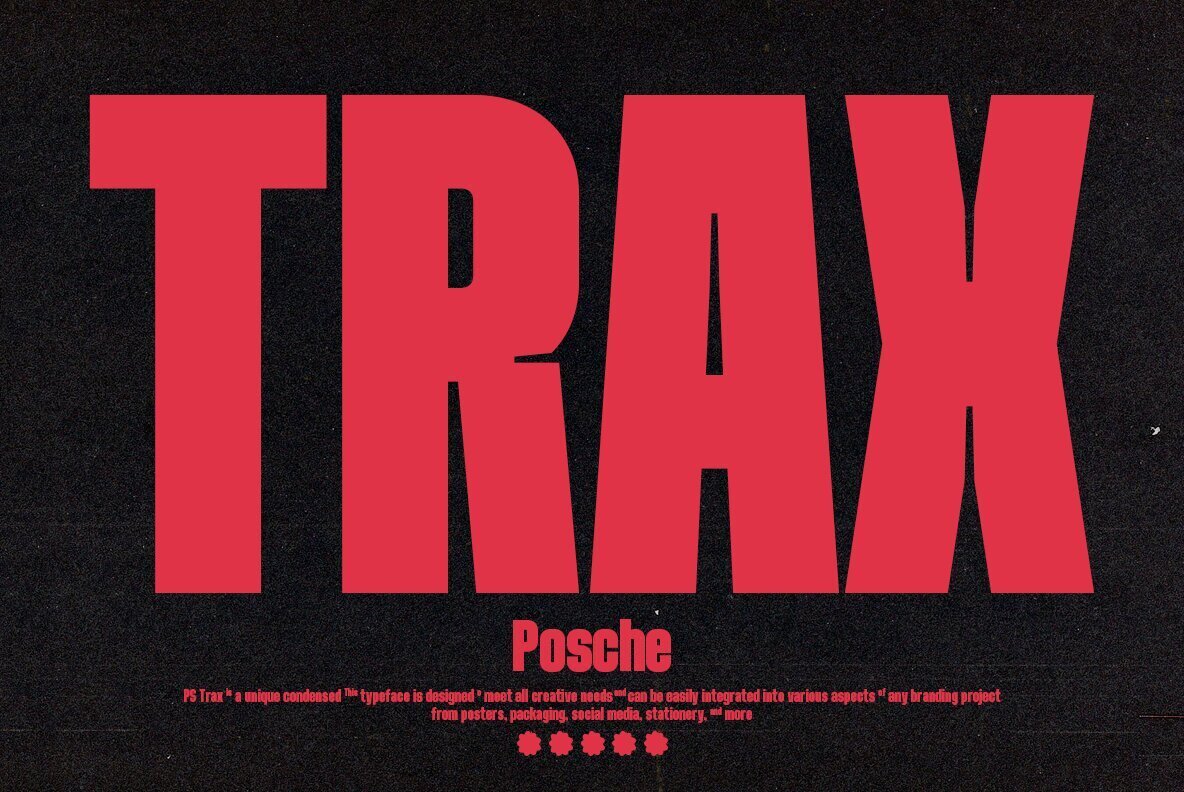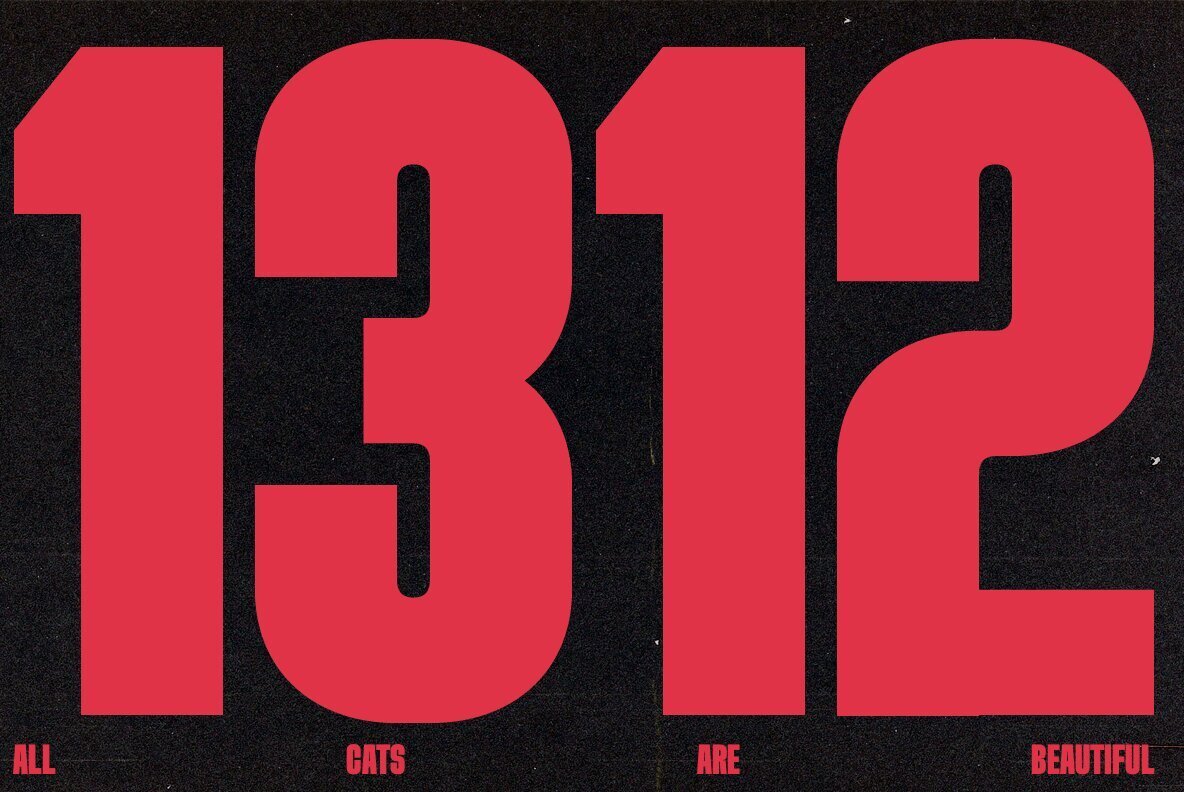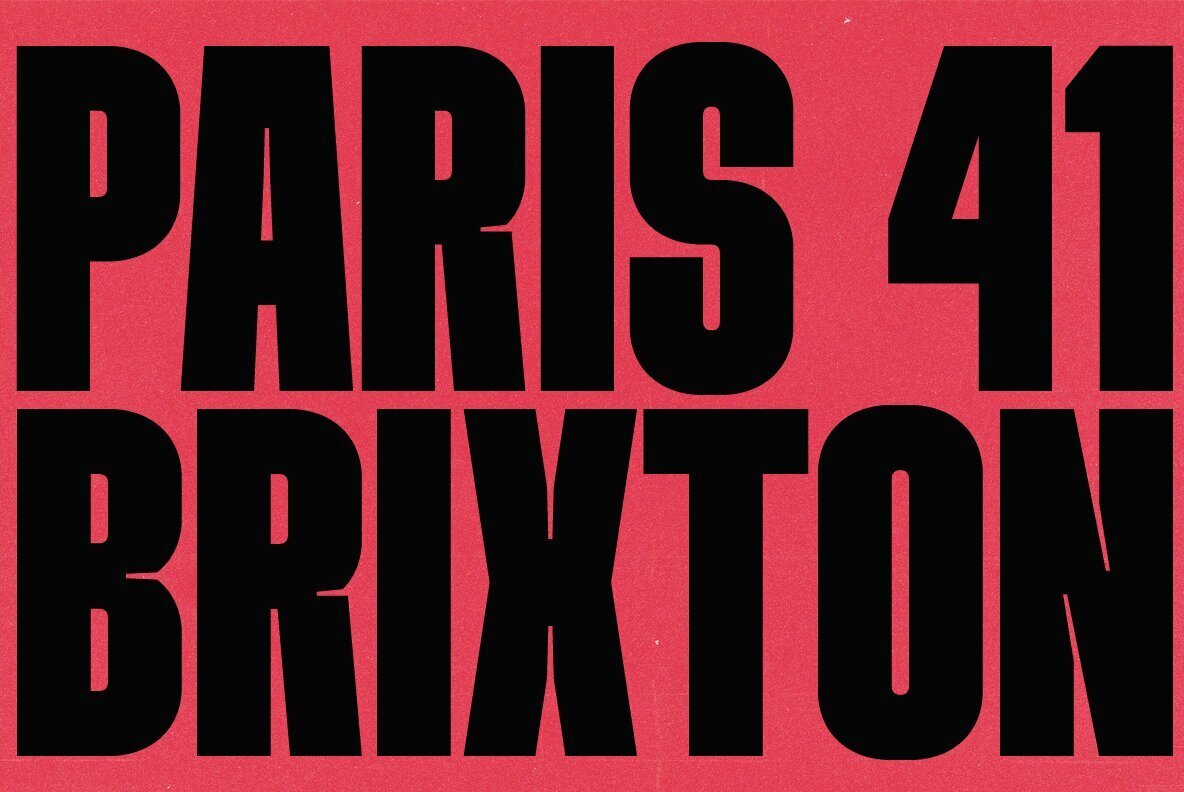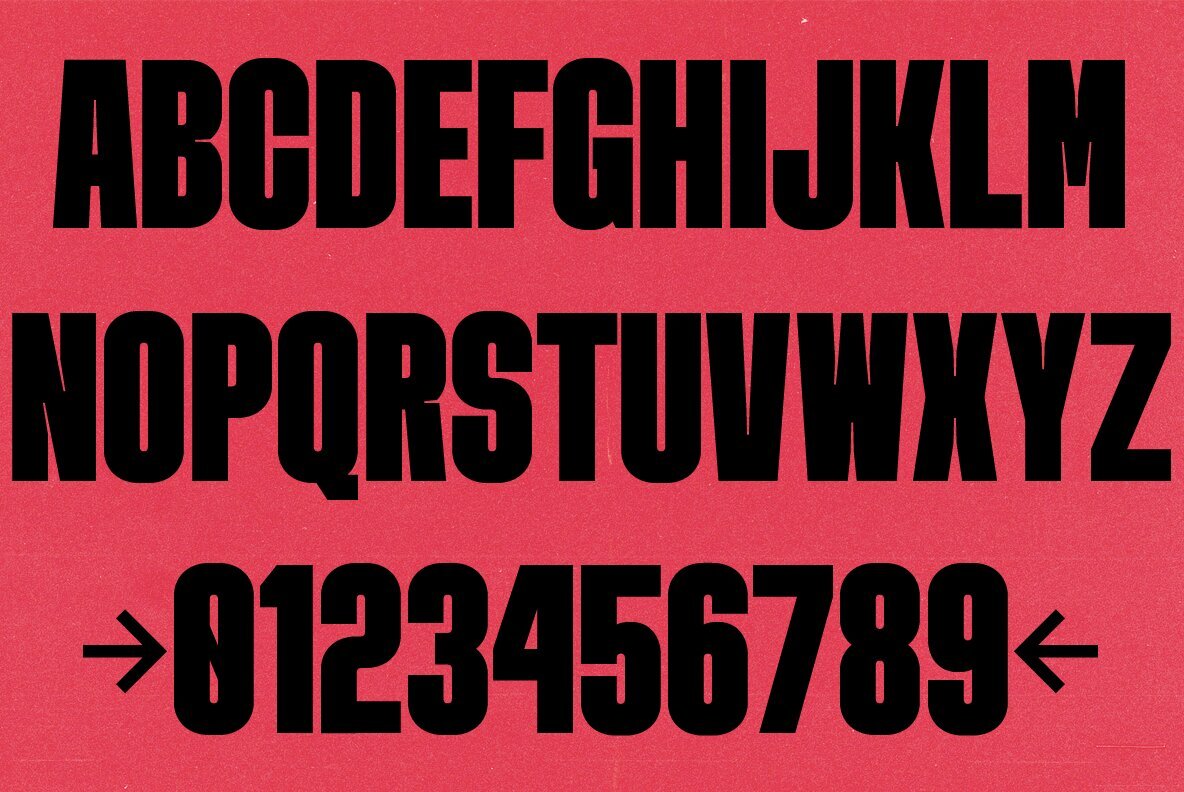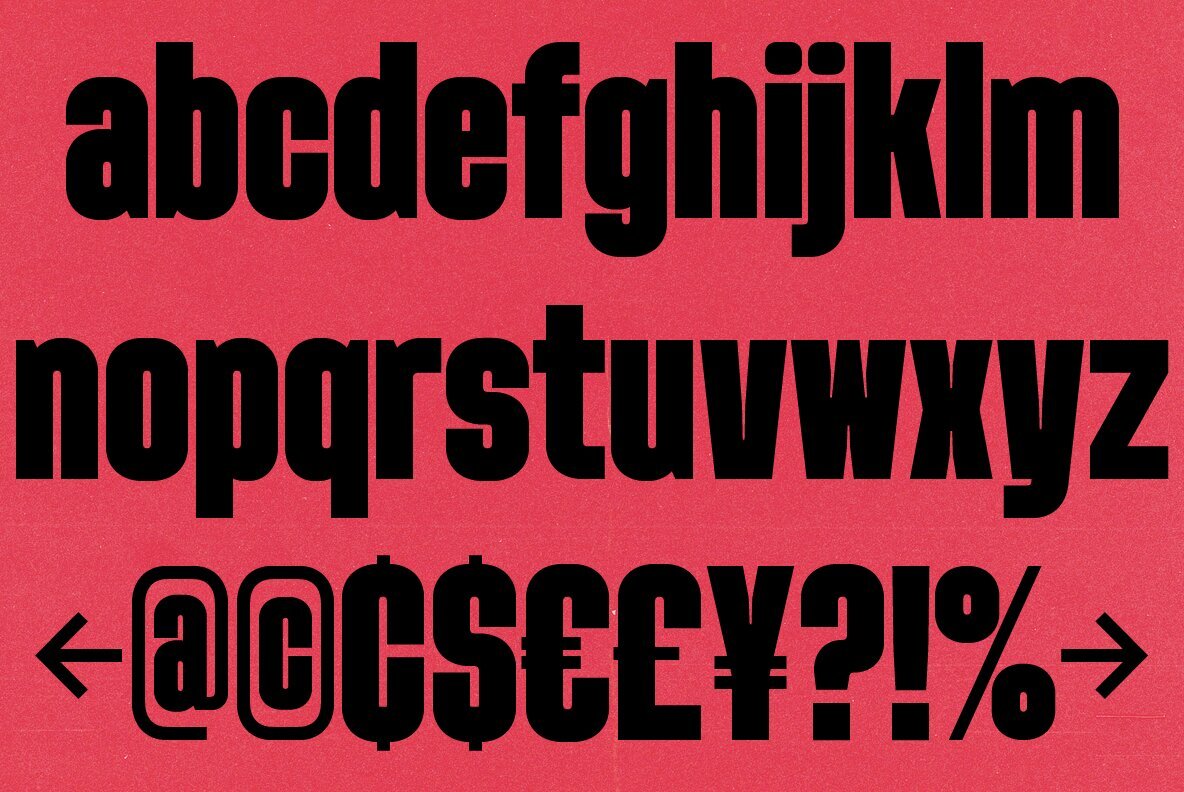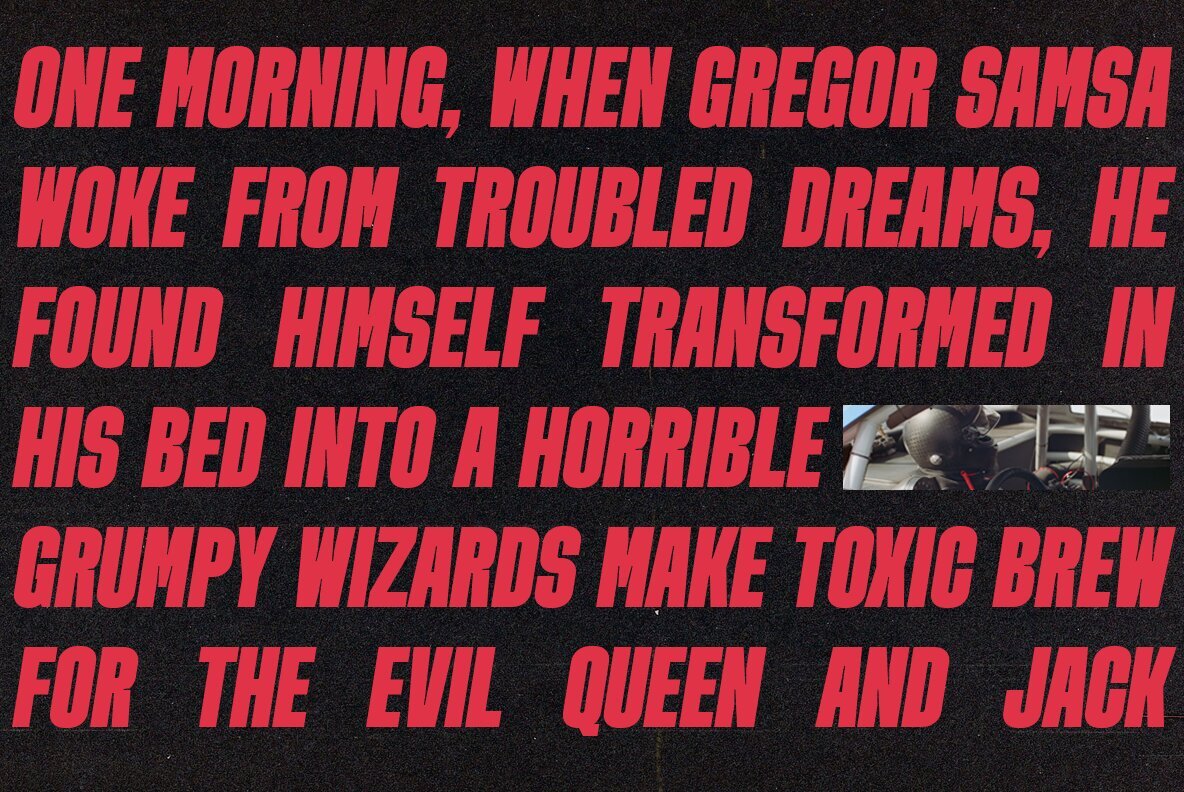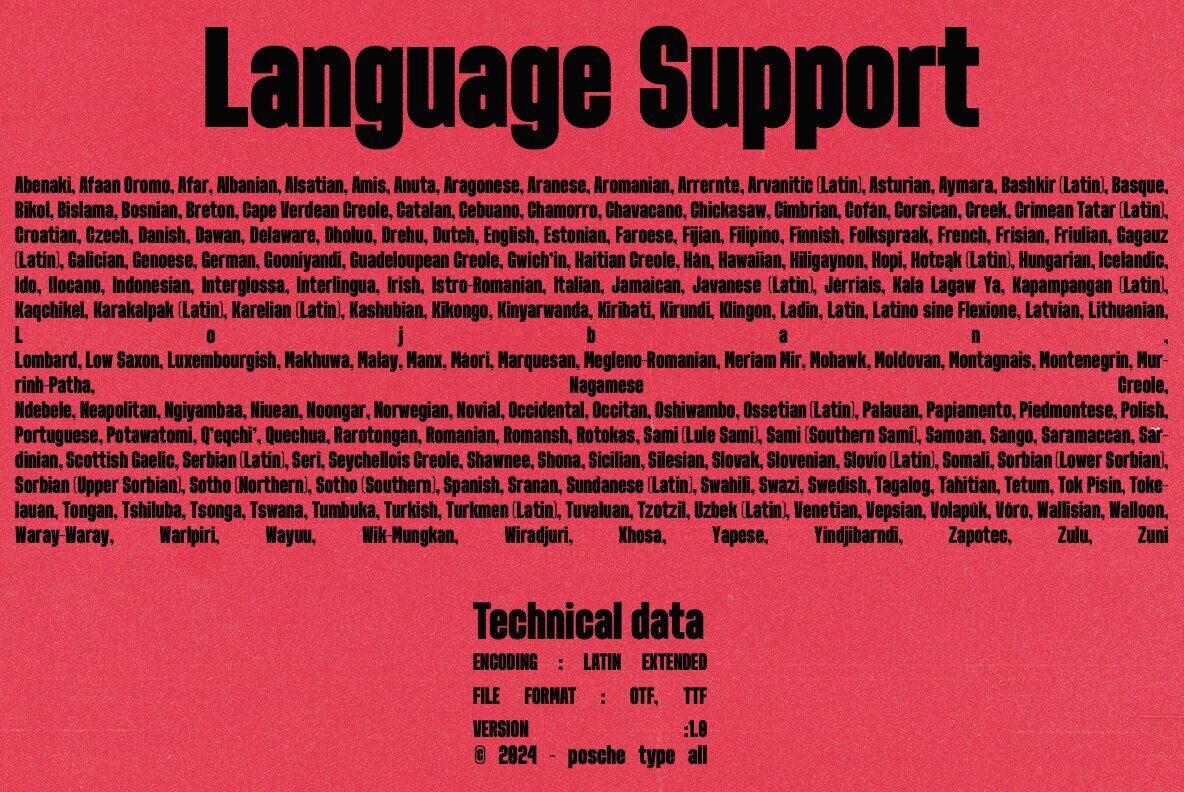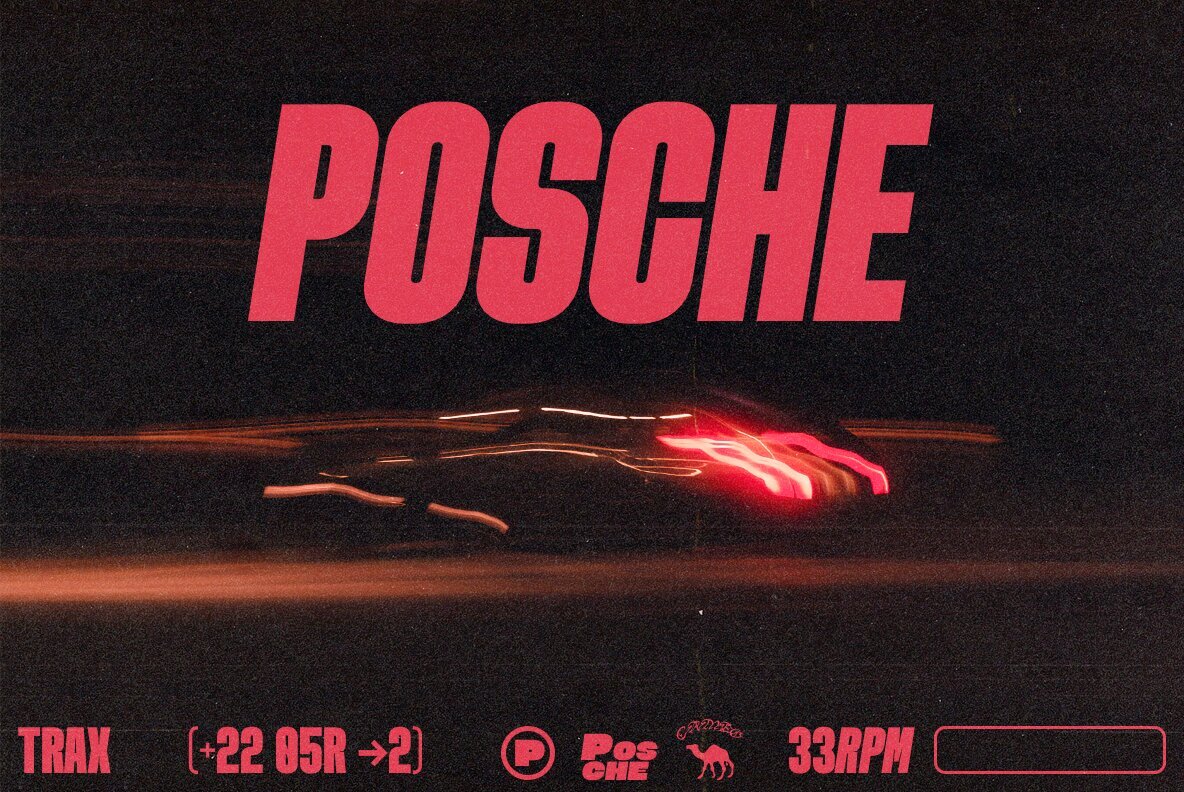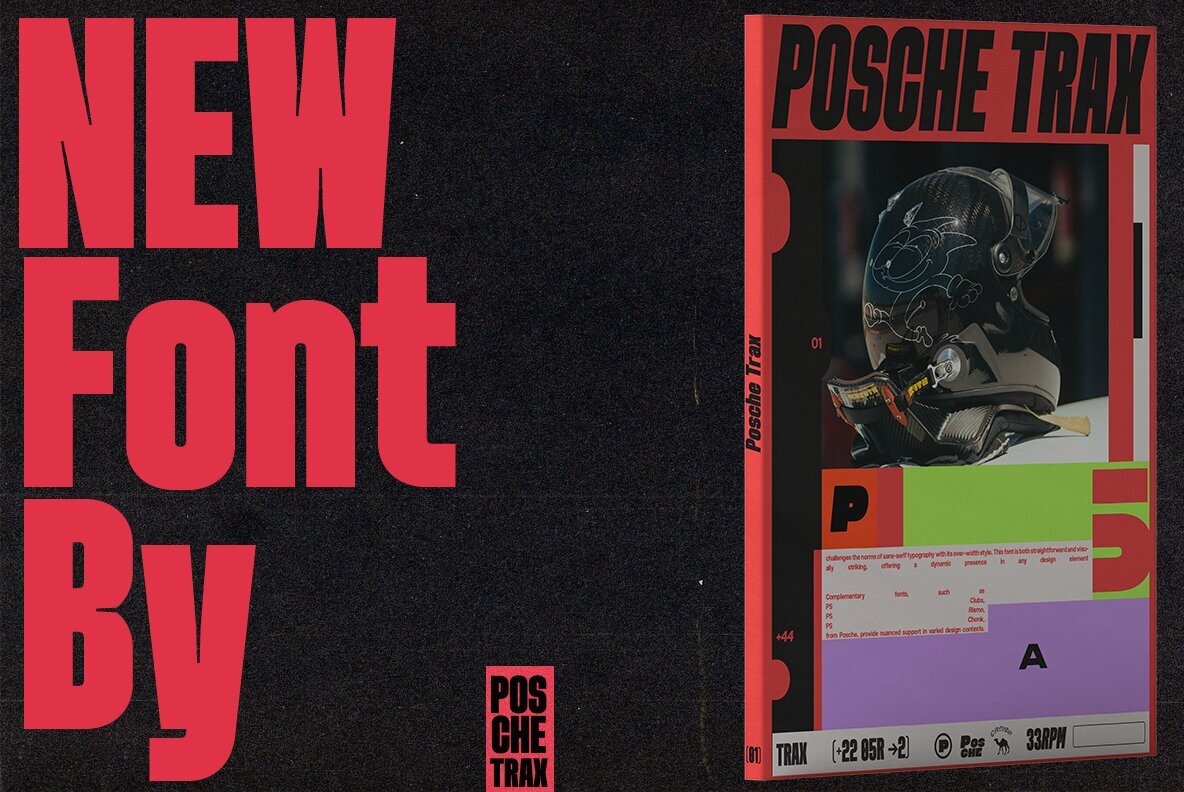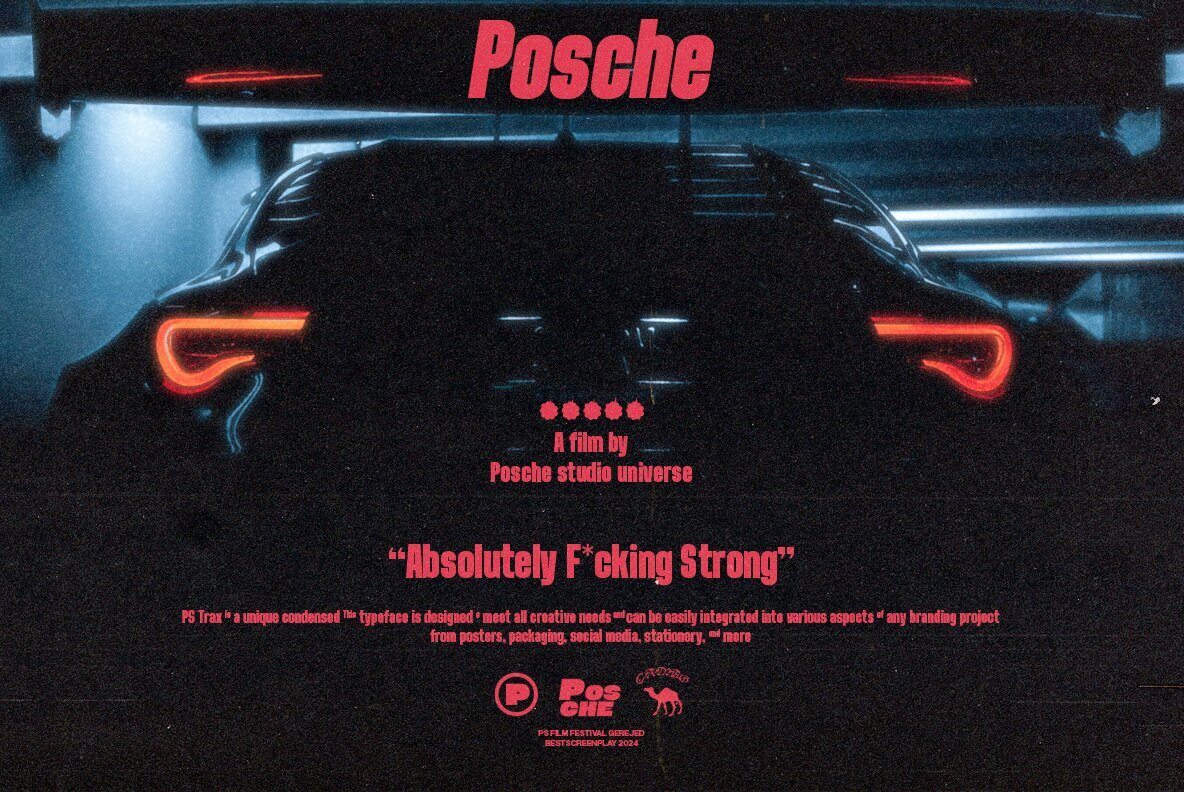
PS Trax Font
PS TRAX Regular
PS TRAX Slanted
PS Trax commands attention with its sharp lines and bold presence, evolved from the trusted PS Tier. Designed with both uppercase and lowercase letters, as well as a dynamic slanted style, this typeface draws inspiration from iconic movie typography, making it an excellent choice for posters, titles, and standout branding work.PS Trax: A Bold Sans-Serif for Powerful Design Statements
Its assertive forms offer a strong visual identity, capturing the viewer’s attention and pairing seamlessly with diverse design elements. PS Trax’s versatility excels in projects where clarity and impact are essential, whether in print or digital media.
Multilingual support is robust, featuring Latin Extended characters for Western, Central, and Southeastern European languages. This comprehensive range ensures effective communication across a broad audience. The inclusion of icons and symbols adds further flexibility, making PS Trax suitable for a variety of creative and functional applications.Key Features